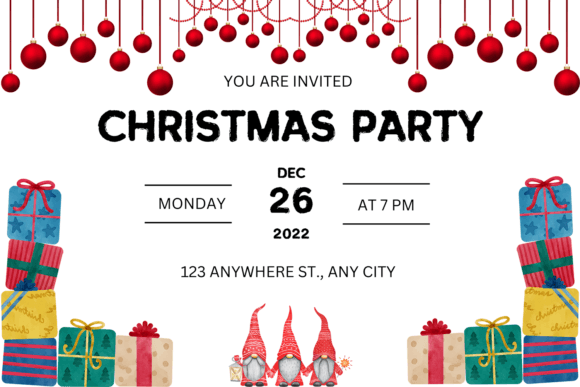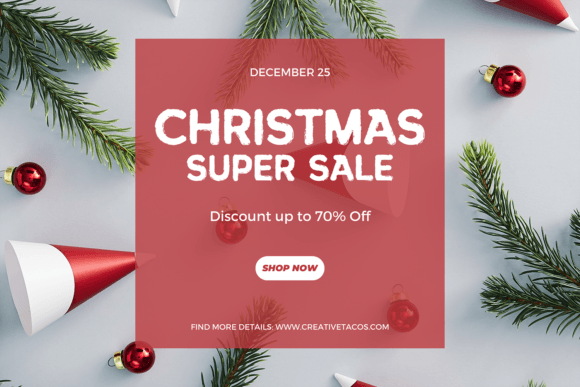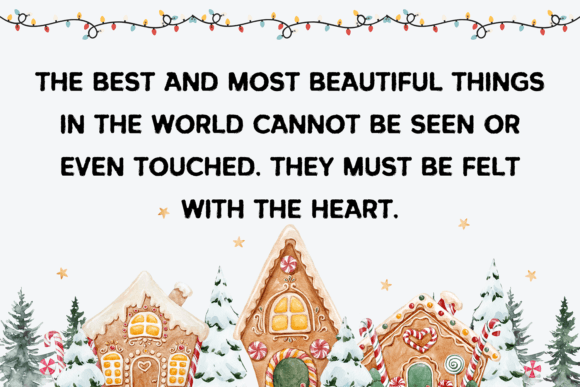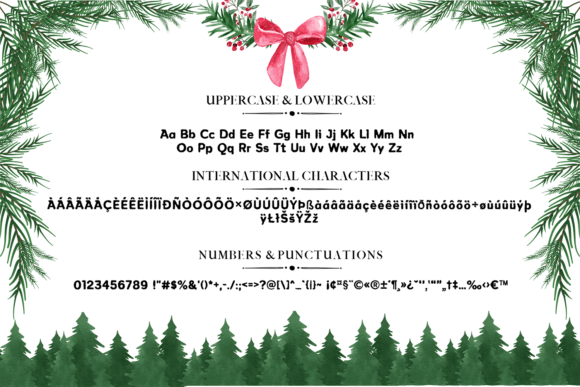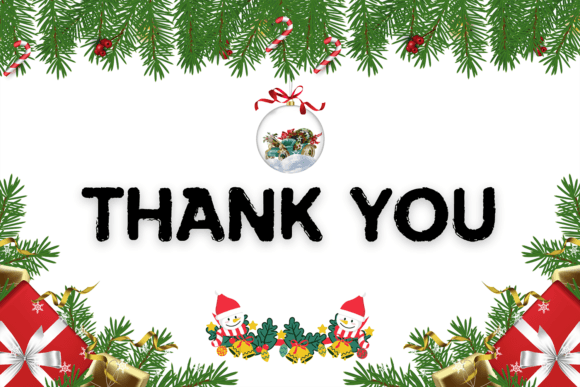
Introduction to Pahtan Font
Pahtan Christmas Font is a unique, charming, playful and joyful design font that is perfect for adding a festive touch to your Christmas designs.
| 👤 Author | creativetacos |
This font includes uppercase letters, lowercase letters, numbers, punctuation, and multilingual support, allowing you to create complete and consistent designs .
Key Features of Pahtan Font
Why Choose Pahtan Font?